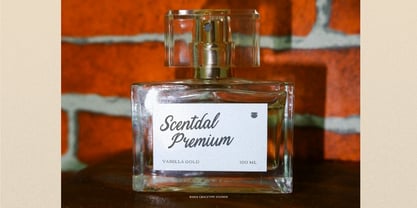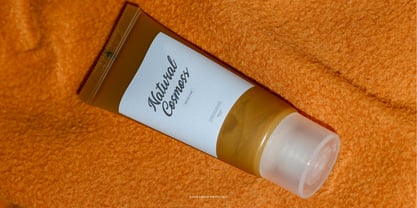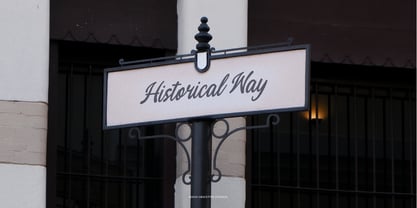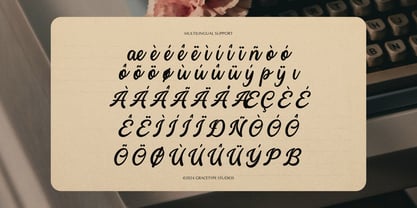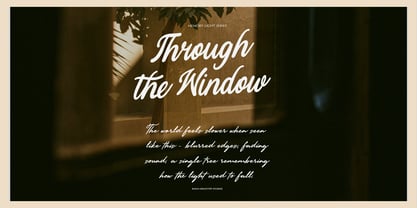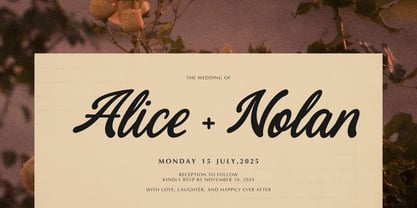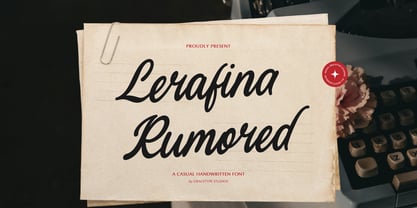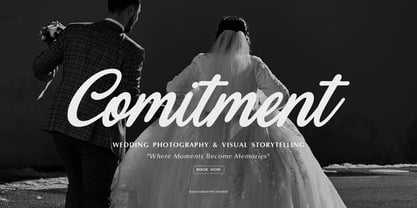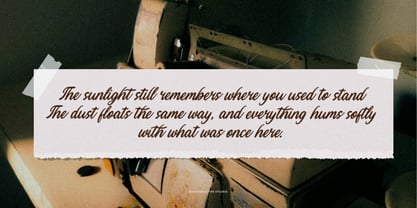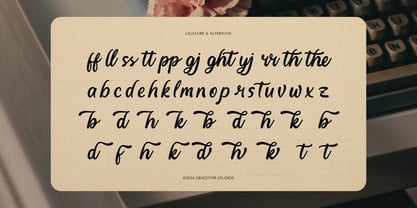
Lerafina Rumored
Lerafina Rumored | Casual Handwritten Font, from Gracetypestudio, suitable for any projects such as: logos, branding projects, homeware designs, product packaging, mugs, quotes, posters, shopping bags, t-shirts, book covers, name card, invitation cards, greeting cards, label, photography, watermark, special events, and all your other lovely projects that need a Retro Script taste.